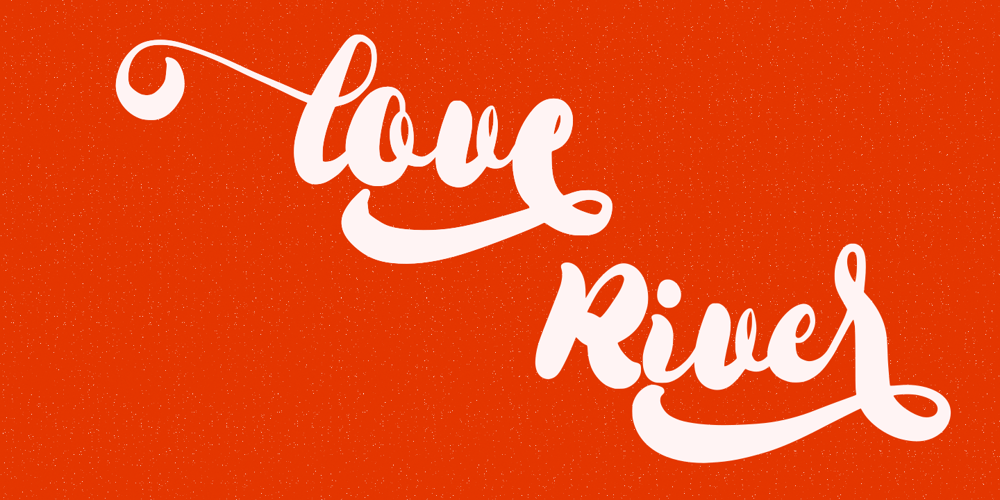
Love River Font Family was designed by Syukur Setiyadi and published by SSI.Scraps. Love River contains 1 styles and family package options. Love River is a thick lettered, flowing handwritten font. It looks stunning on wedding invitations, thank you cards, quotes, greeting cards, logos, business cards and every other design which needs a handwritten touch.